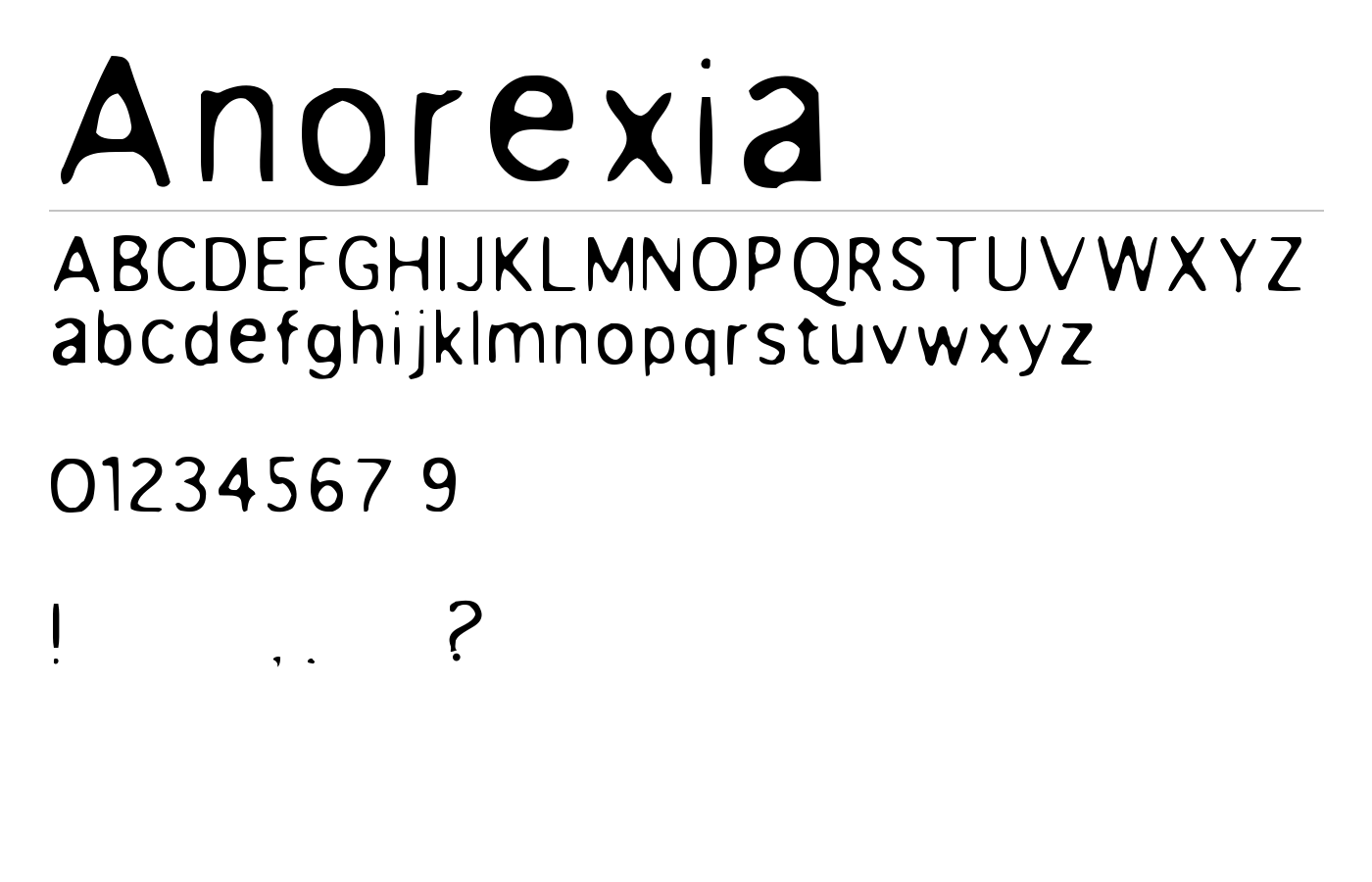
Anorexia is a quirky, hand-drawn sans serif font characterized by its irregular, narrow letterforms and distinctively uneven strokes, giving it a playful and slightly eerie charm. Its unique shapes and casual style make it well-suited for creative projects, informal branding, and artistic designs where a touch of individuality and whimsy is desired.
Anorexia Font